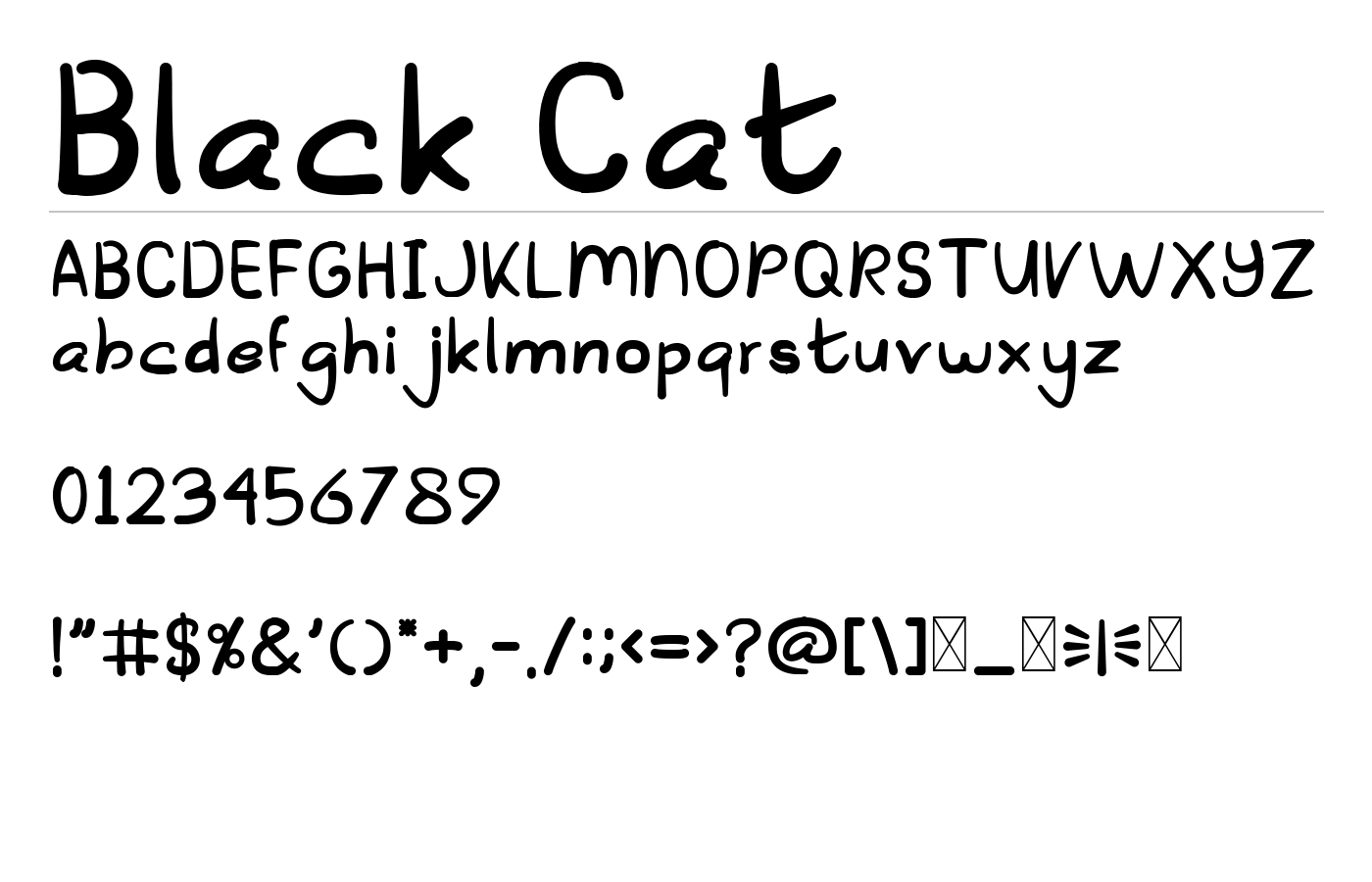
Black Cat Font is a playful and casual handwritten sans serif typeface that feels friendly and approachable. Its irregular stroke widths and quirky letter shapes give it a charming, informal style perfect for creative projects, children's materials, and relaxed branding. This font works great in headlines, invitations, and any design that benefits from a warm, personal touch.
Black Cat Font
About Black Cat Font
| Font family | Black Cat Font |
| Designer | Faris Graphic Art |